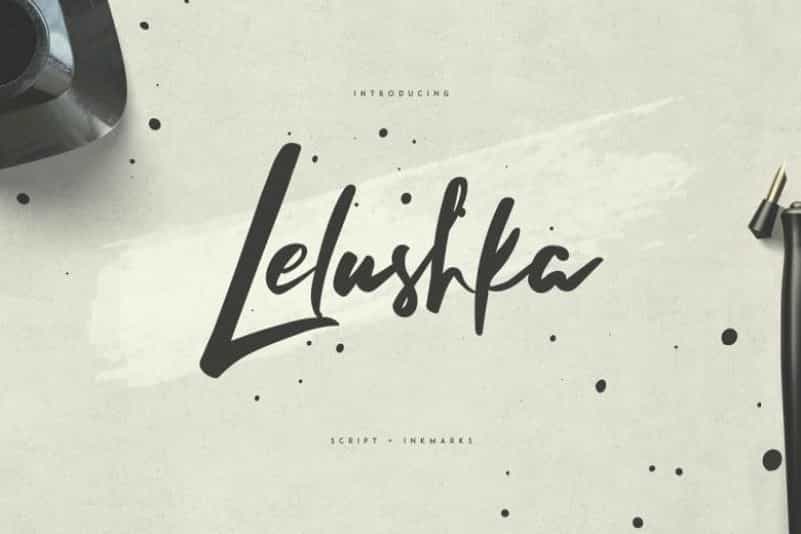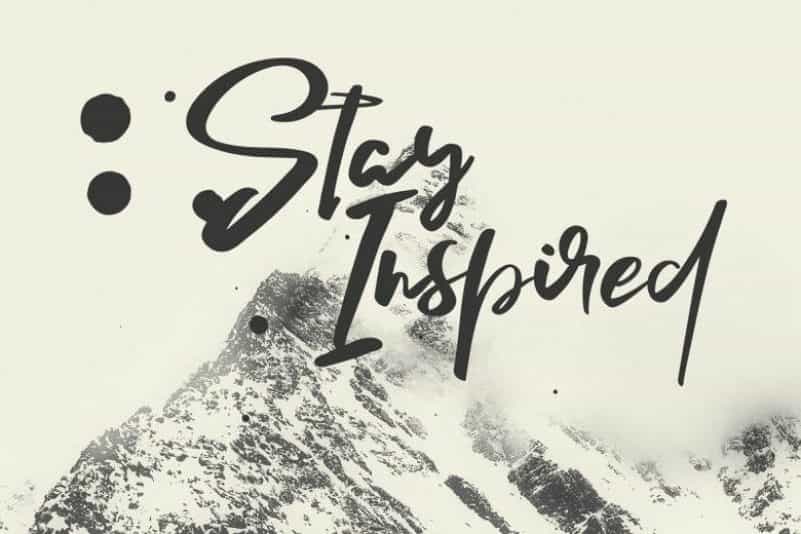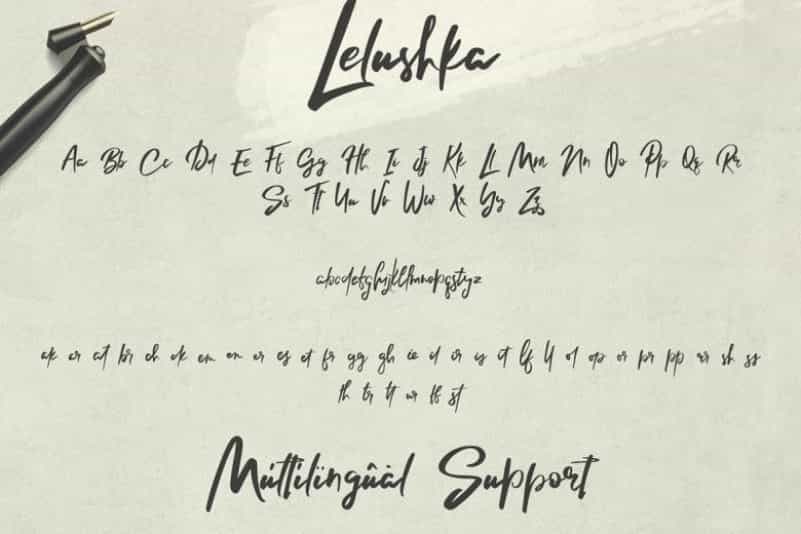
Discover Lelushka Script Font, part of the Brush Handwritten collection—a versatile and unique font perfect for adding a personal touch to your projects. Download it for free and enjoy crafting designs with style, from invitations to social media posts. This font is available exclusively for personal use, giving you the freedom to create without limits. Unlock your creativity with Lelushka Script Font today!
Hello, buddy! Lelushka Font—Merging the brush style with trendy Hand Lettering style will make your design more beautiful. It is designed and shared by VPcreativeshop. Lelushka is grunge, urban script with 20 ink marks and multilingual support.